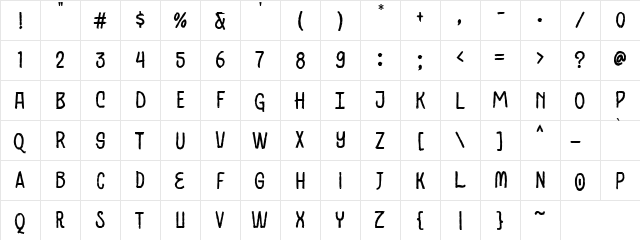
Black Grounds Regular
| Foundry | Letterhend Studio |
| Designer | Umar Al Farouq |
Design Context for Black Grounds Typeface
Black Grounds softens its letterforms with rounded terminals, giving it an approachable, friendly quality that works well in consumer-facing and digital contexts.
Well-suited to UI design, mobile interfaces, and any brand that wants approachability without sacrificing clarity.
Font Pairing: Pairs well with a rounded or humanist sans for body copy, maintaining the friendly tone without relying on Black Grounds to carry extended reading.
Pro Tip: Use Black Grounds for UI elements, app interfaces, and anywhere a friendly, approachable tone needs to be maintained without sacrificing clarity.